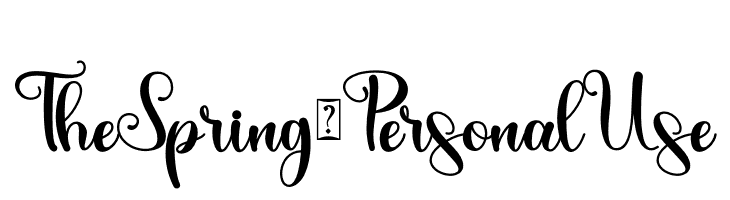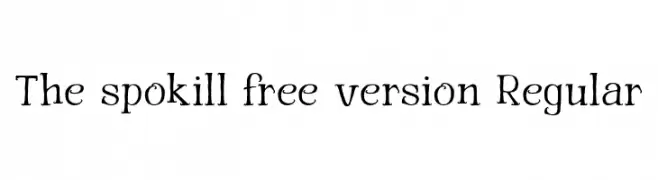
A dynamic script font with fluid, cursive strokes and a handwritten feel.
A hand-drawn, vintage-style font with a playful and distressed appearance.
A bold, brush-style font with dynamic, hand-painted strokes.
A spooky, decorative font with sharp serifs and a Halloween-inspired style.
An elegant and flowing script font with ornate, decorative letterforms.
An elegant and flowing script font with decorative swirls and loops.
A bold, italic script font with decorative loops and high contrast.
An elegant, flowing script font with thin strokes and graceful curves.
An elegant, cursive script font with fluid, interconnected strokes.